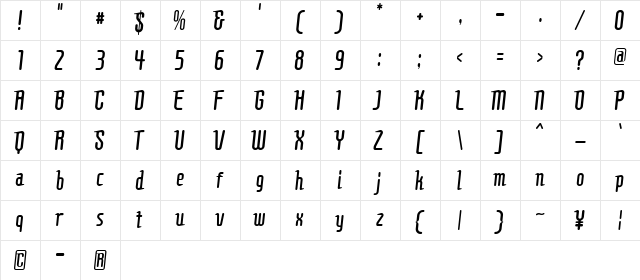
Comons Ligh Font Preview
Comons Ligh
Comons Ligh Font Details
Design Context for Comons Typeface
Comons offers clean, dependable letterforms without strong stylistic allegiance, making it a practical choice for designers who need flexibility.
Pro Tip: Pair Comons with a font of contrasting weight or personality to build a more expressive typographic hierarchy.